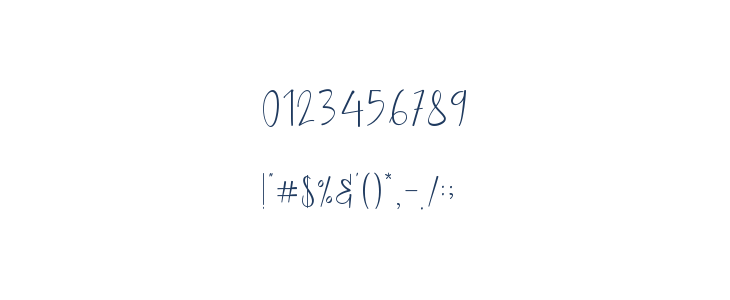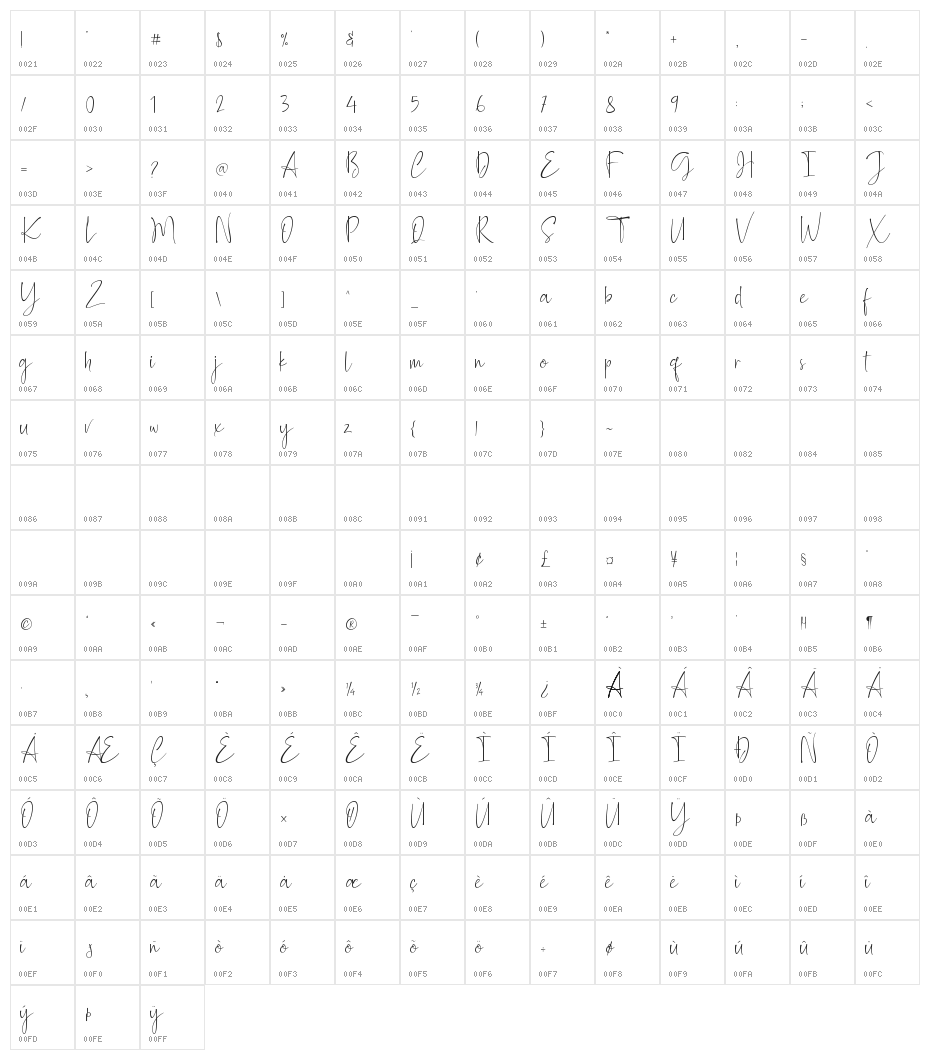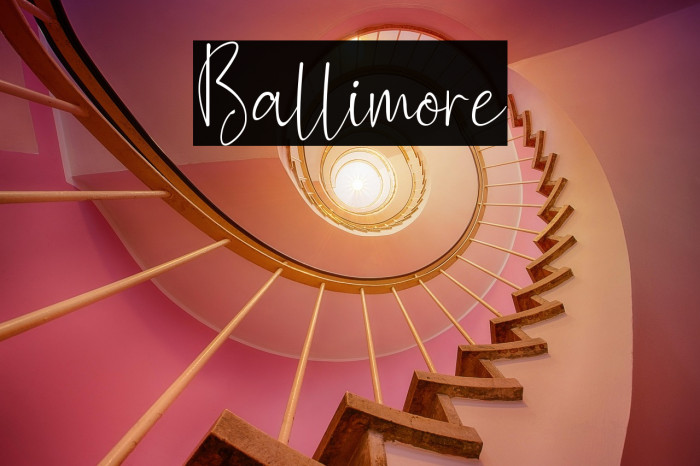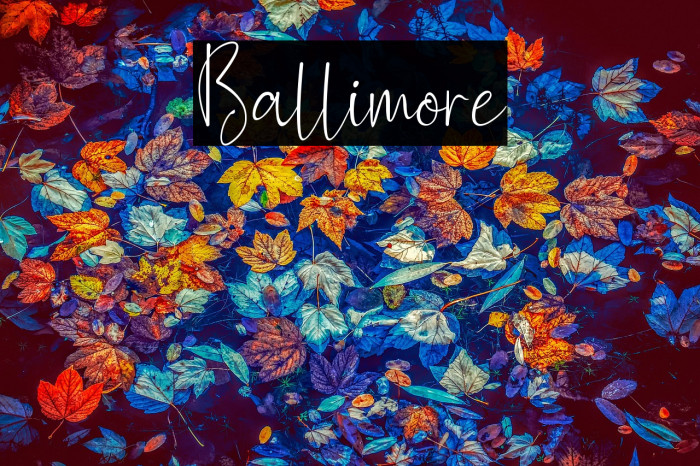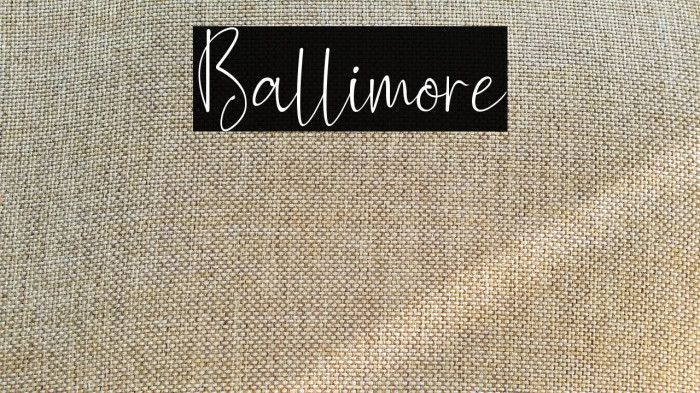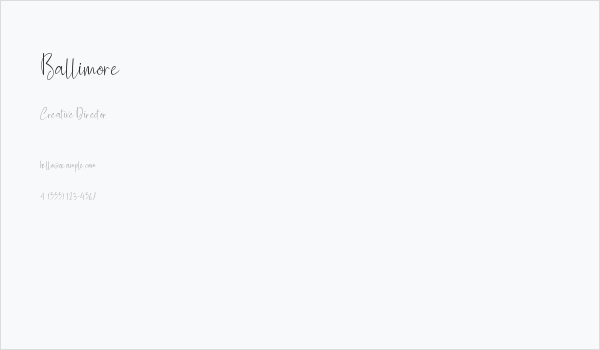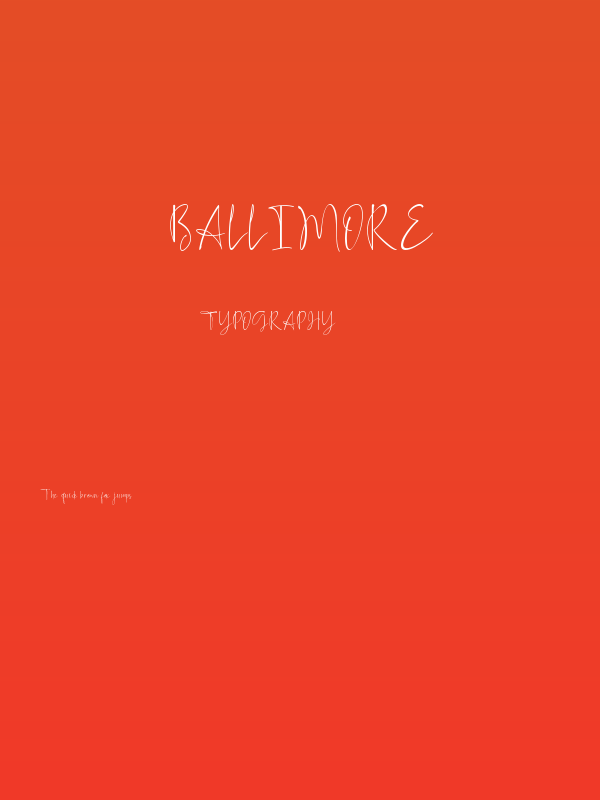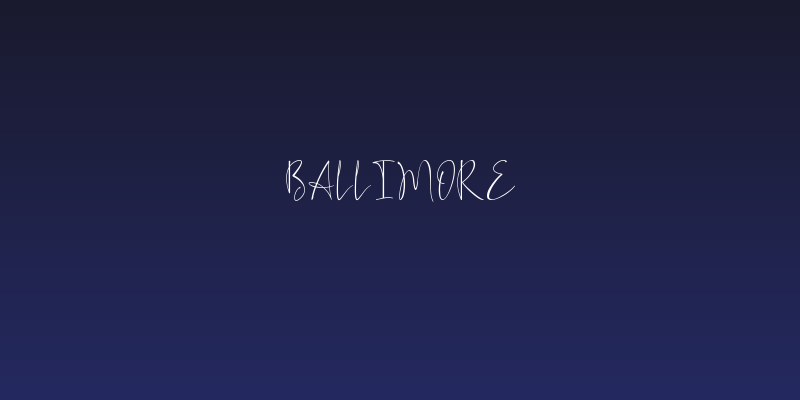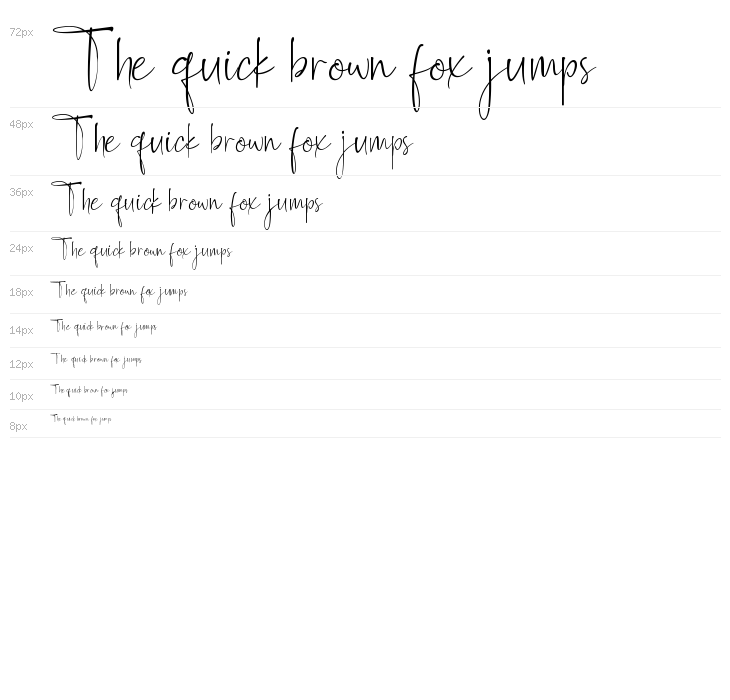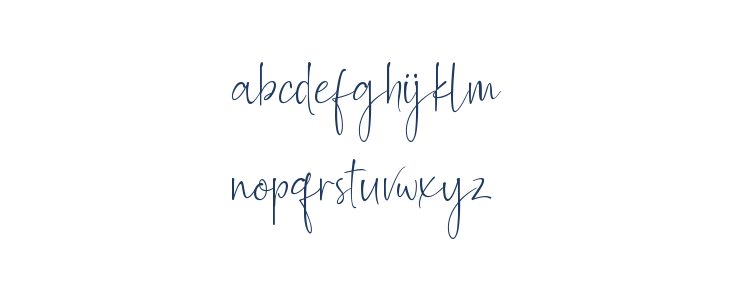
Ballimore Font
Ballimore Description
This font features a whimsical, handwritten style with a playful and elegant flair. The characters are tall and slender, with a slight slant that adds a dynamic feel. Each letter is crafted with fluid strokes, giving it a natural and organic appearance. The uppercase letters are bold and expressive, while the lowercase letters maintain a consistent flow. The numerals are clear and distinct, matching the overall aesthetic. Special characters are creatively designed, enhancing the font's versatility. This font is perfect for projects that require a personal touch or a creative edge.
| Use Case | Logos, Invitations, Creative projects |
| Proposed Projects | Ideal for wedding invitations, greeting cards, branding, and creative projects that require a personal touch. |